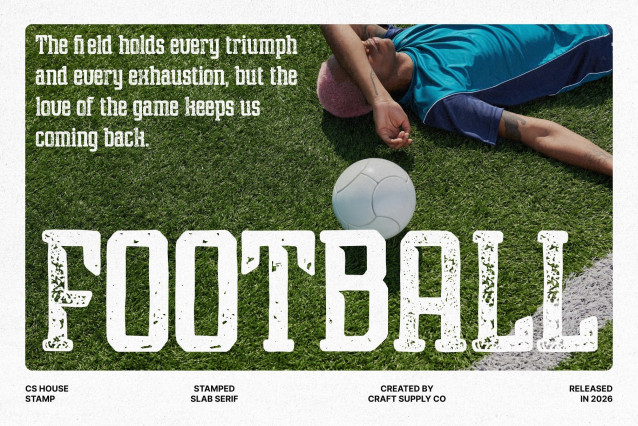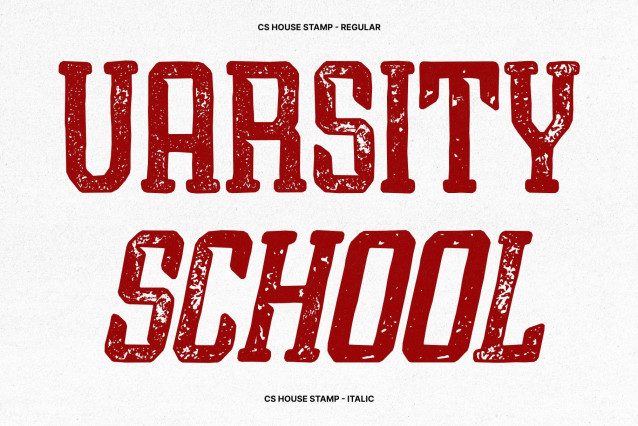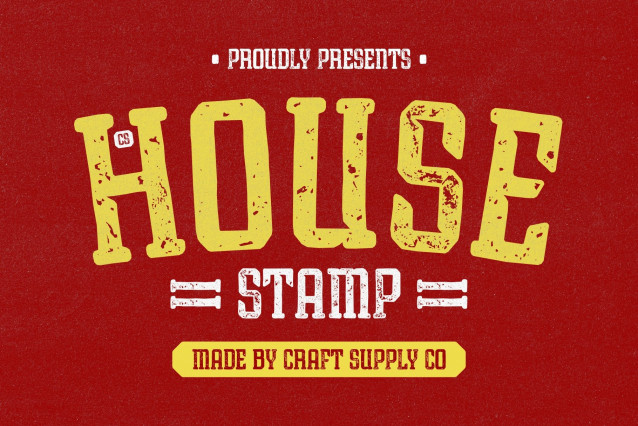
CS House Stamp Font
CS House Stamp – Sporty Font with Vintage Athletic Impact
Slab Serif Strength with a Sporty Edge
This is a bold slab serif typeface designed to deliver power, energy, and athletic confidence. Its sturdy slab serifs create a strong and grounded structure, while the sporty character brings a sense of speed, motion, and competitive spirit perfect for designs that need to feel dynamic and impactful.
Bold Letterforms for High Visibility
Featuring thick strokes and solid shapes, this font commands attention instantly. The robust construction ensures excellent readability across large headlines, logos, posters, and promotional graphics, making it ideal for projects that require maximum visual presence and clarity.
Vintage Stamp Texture for Athletic Heritage
The added stamp effect introduces a distressed, ink-pressed texture that gives the font a nostalgic sports heritage feel. This vintage touch adds character and authenticity, evoking classic team emblems, retro merchandise, and old-school athletic branding.